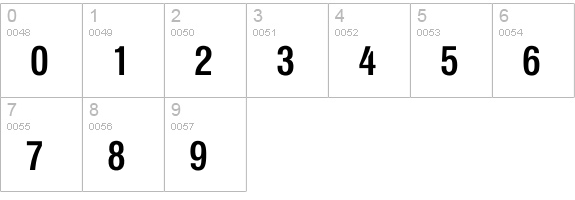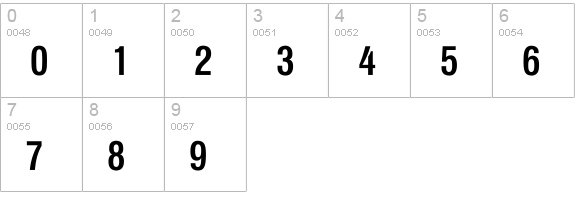
Colympia DemiBold is a sub-bold, structured variant in the Colympia typeface family \xE2\x80\x94 well suited to sub-headlines and emphasised passages.
Introducing Colympia DemiBold font, a versatile and modern typeface that commands attention with its bold yet elegant design. This font is perfect for creating eye-catching headlines, logos, posters, and more with its strong presence and clean lines. What makes Colympia DemiBold even more appealing is that it is available for free download at FontsMarket.com. Now you can elevate your design projects without any extra cost, making it a must-have addition to your font library. Don't miss out on this fantastic opportunity to enhance your creations with the striking Colympia DemiBold font today.